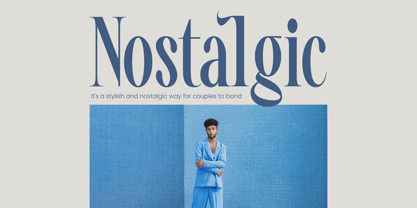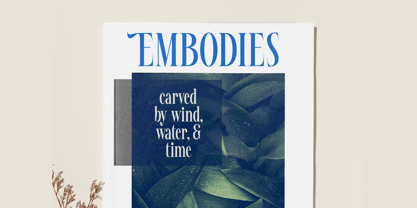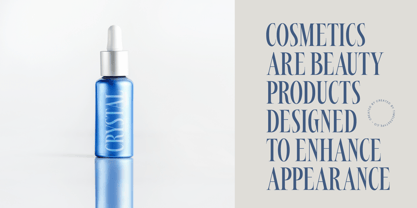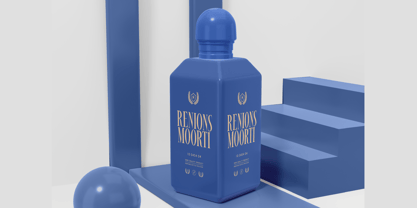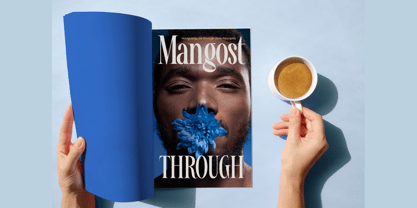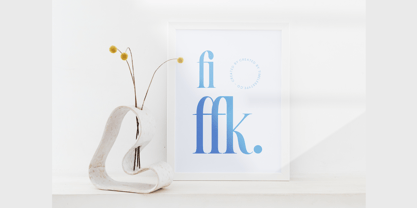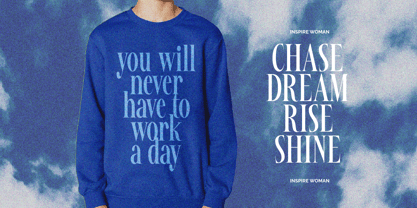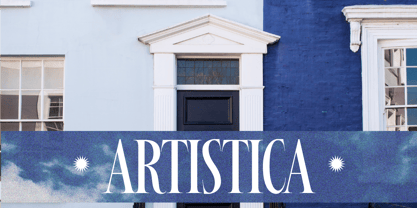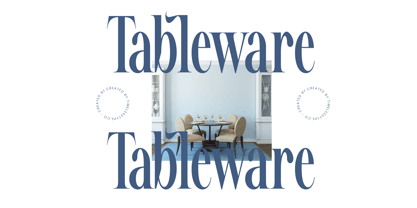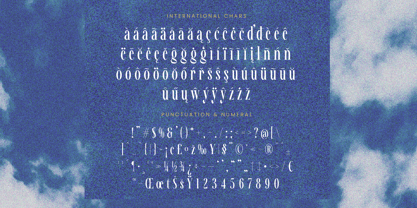
Awesome Shorten
by Timelesstype Studio
The Awesome Shorten Font Family was designed by Heru Utama Putra and published by Timelesstype Studio. Awesome Shorten contains 2 styles and family package options.
Awesome Shorten - Tall Serif Display , from Timelesstype, Suitable for any projects such as: logos, branding projects, homeware designs, product packaging, mugs, quotes, posters, shopping bags, t-shirts, book covers, name card, invitation cards, greeting cards, label, photography, watermark, special events, and all your other luxury and beautiful projects that need a Luxury Serif taste.
Designers: Heru Utama Putra
Publisher: Timelesstype Studio
Foundry: Timelesstype Studio